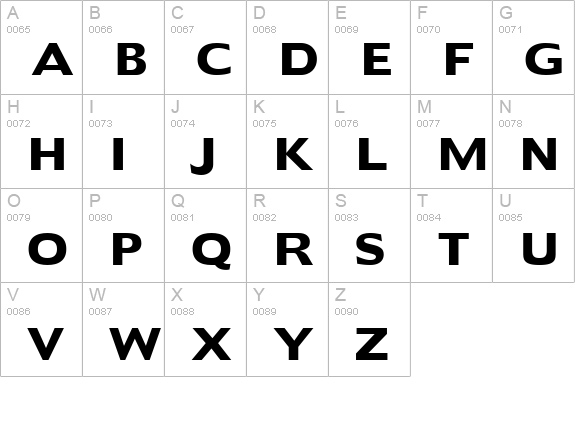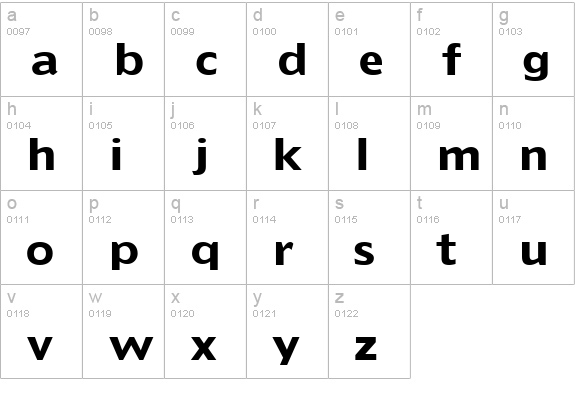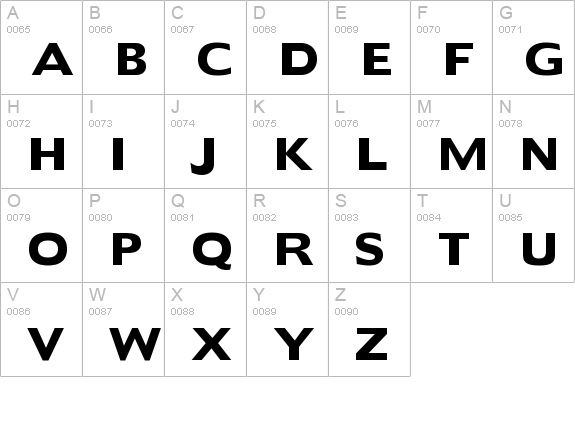
Extens SSi Bold is a strong, high-contrast variant in the Extens typeface family \xE2\x80\x94 well suited to headlines, attention-grabbing titles, and strong calls-to-action.
Extens SSi Bold font is a striking and modern typeface that exudes confidence and strength. Its bold and impactful design makes it perfect for headlines, titles, and other display purposes. With its clean lines and sharp edges, Extens SSi Bold font commands attention and adds a touch of sophistication to any design project. The best part is that Extens SSi Bold font is available for free download at FontsMarket.com. This means you can easily access this high-quality font without any cost. Whether you're working on a branding project, poster design, or any other creative endeavor, Extens SSi Bold font will help you make a bold statement with your typography. Download Extens SSi Bold font today and elevate your designs with its powerful presence.